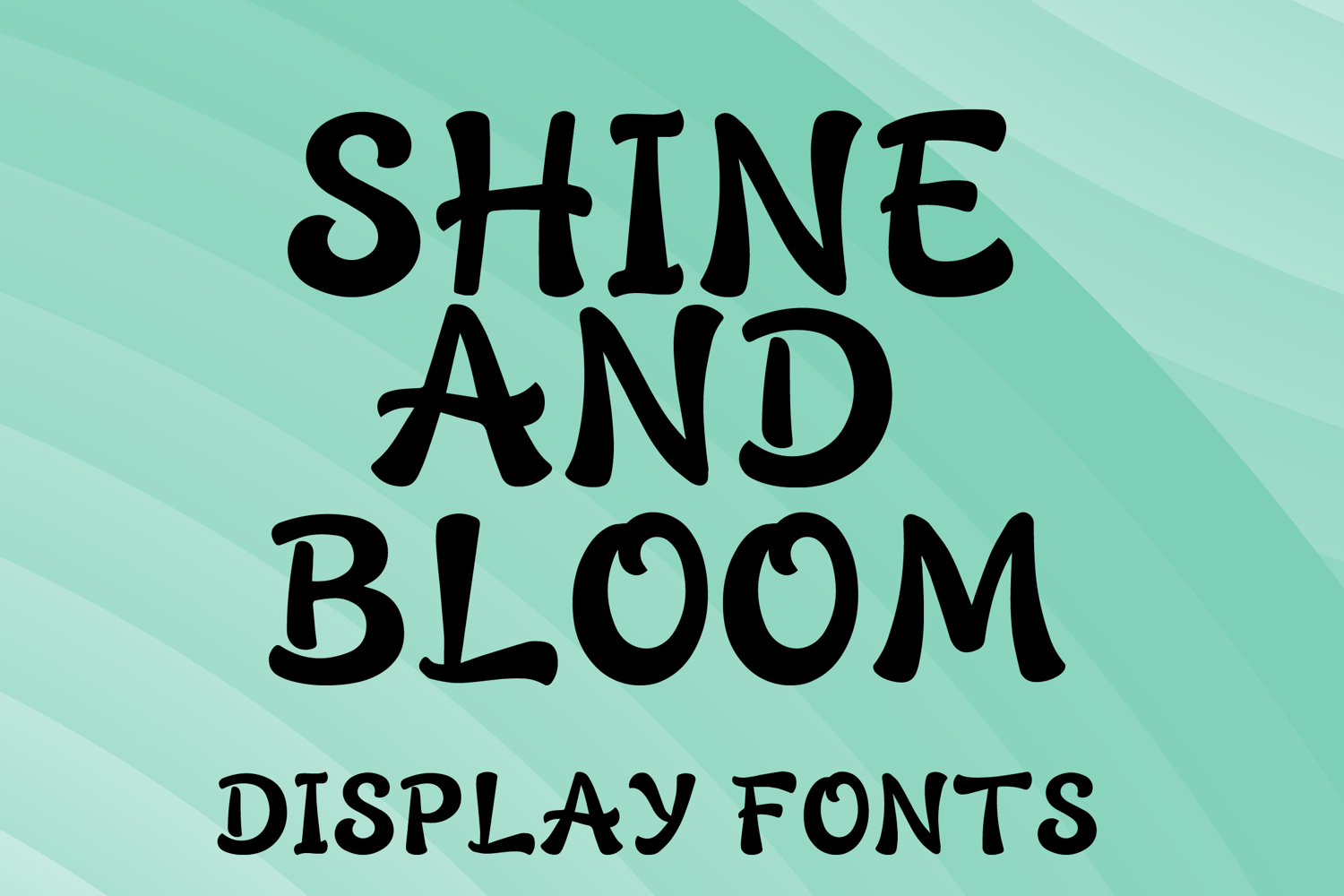
SHINE AND BLOOM
SHINE AND BLOOM is a whimsical decorative display font with a playful hand-drawn style and cheerful artistic charm. Its uppercase letterforms feature bold rounded strokes, soft organic curves, and charming curled details that create a warm, joyful, and eye-catching look. Designed with uppercase letters A–Z and numbers 0–9, SHINE AND BLOOM is perfect for branding, posters, packaging, invitations, quotes, social media graphics, and creative projects that need a bright and memorable statement